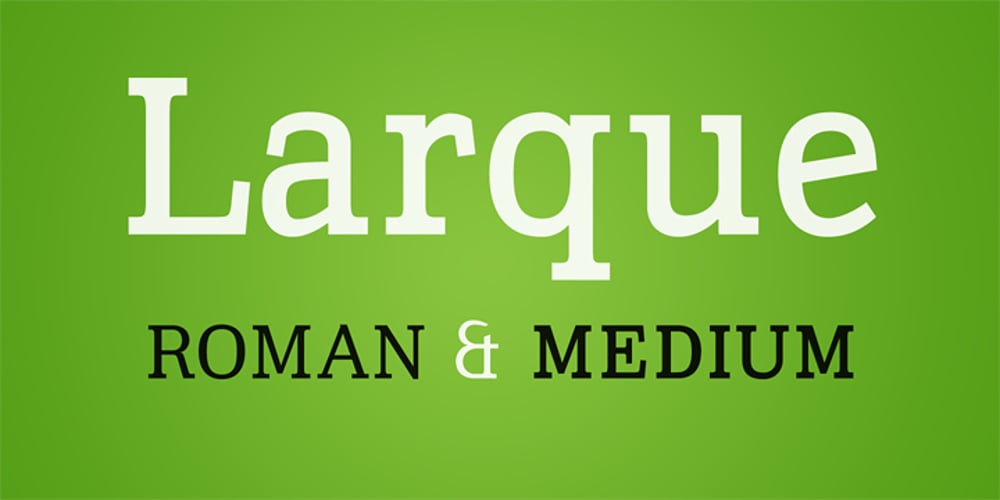
Larque
Larque font
Larque Font Family was designed by Christian Gwiozda and published by Furiosum. Larque contains 2 styles and family package options. Larque is a slab serif text typeface. The tall x-height and the open counters makes the font very legible at small sizes. Larque includes extended latin characters, ligatures, oldstyle figures and Open Type features. It is available in roman and medium weight.